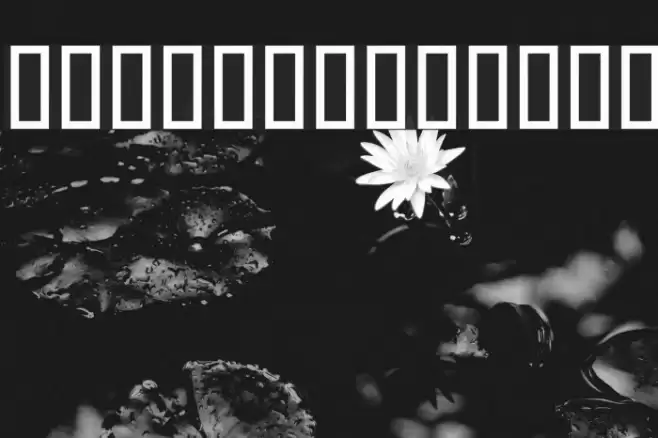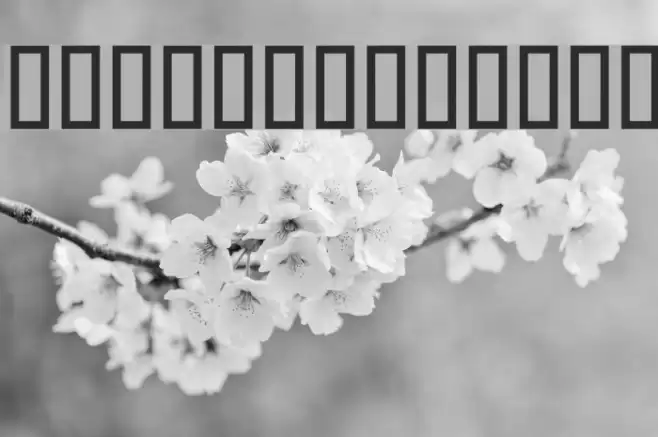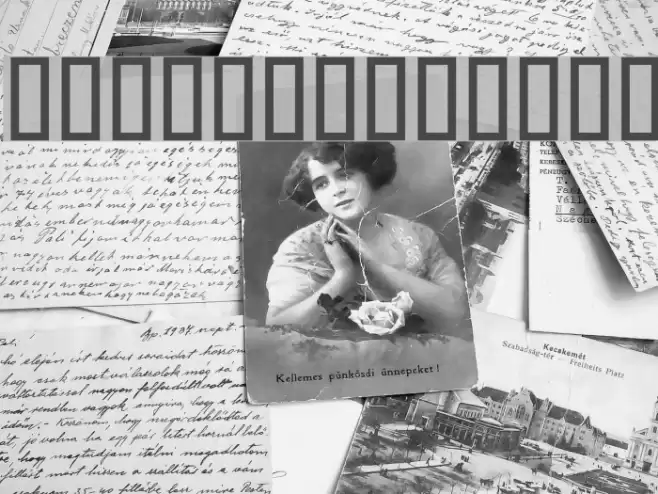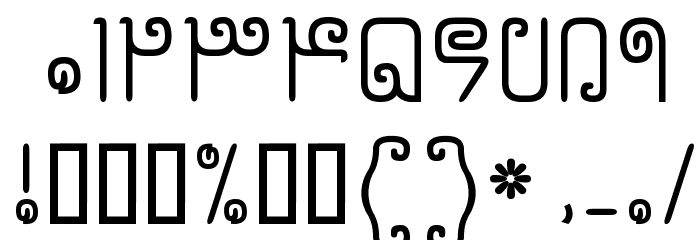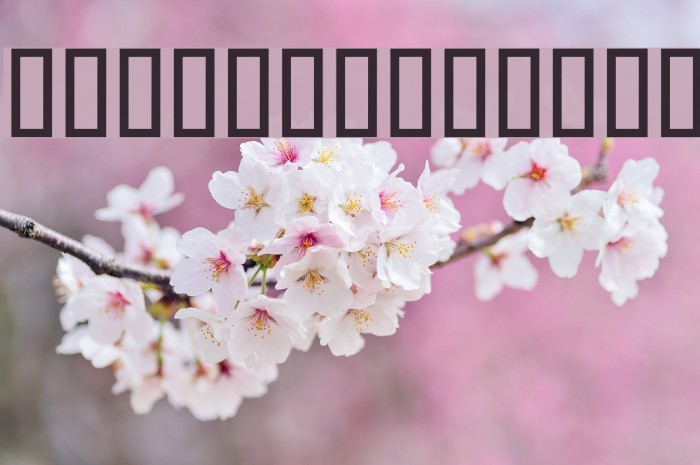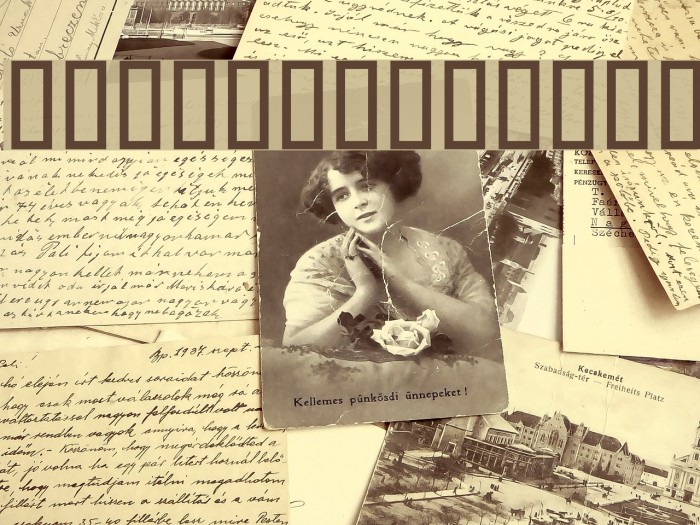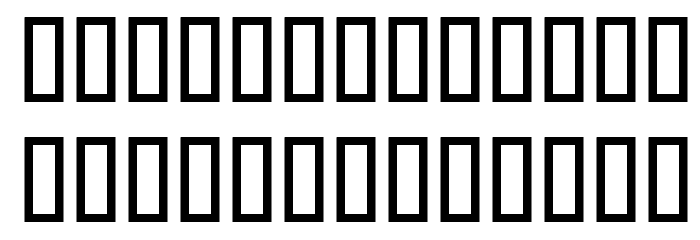
Parisaa Font
Parisaa Description
This font features a unique and artistic design with a playful and decorative style. The characters are crafted with a blend of curves and straight lines, giving them a whimsical and creative appearance. The uppercase letters are bold and prominent, while the lowercase letters maintain a consistent style with slightly more intricate detailing. Numbers and special characters follow the same artistic theme, making them stand out with their distinct shapes. The font's overall design is eye-catching and suitable for projects that require a touch of creativity and flair.
A decorative and playful font with artistic curves and bold characters from Uncategorized fonts.
- Proposed Projects: Ideal for creative projects such as posters, invitations, branding, and artistic designs.